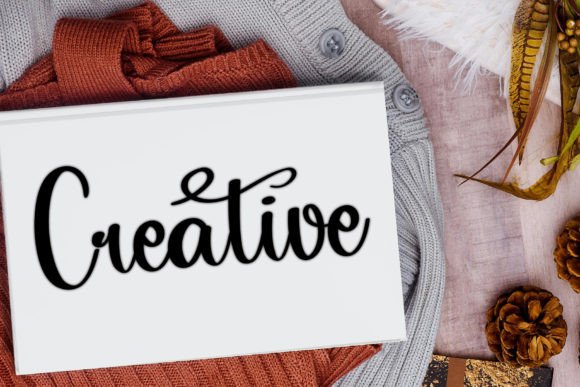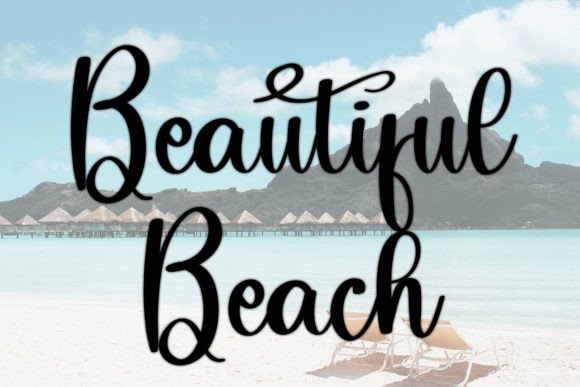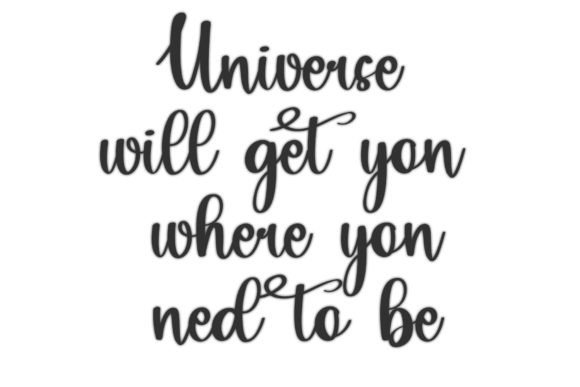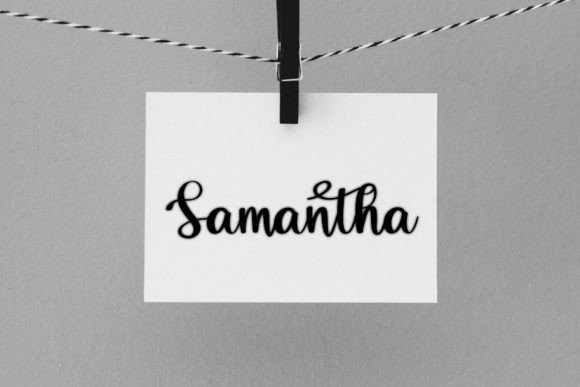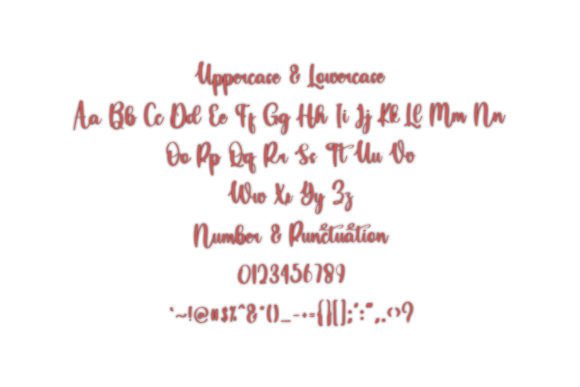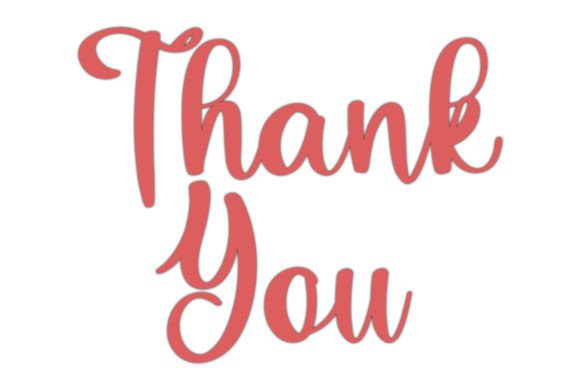
Introduction to Pandawa Font
Have you ever stumbled upon a font that makes your design dreams come true? For me, that moment was when I discovered the Pandawa Font. It’s a game-changer for designers who want to add a touch of elegance to their creative projects. The moment I laid eyes on its beautiful, handwritten script, I knew I had to share it with the world.
The Pandawa Font is a high-quality design resource that offers a unique and timeless style. Its distinct elegance makes it perfect for various projects, from branding to editorial content. With its transparent background, you can easily overlay it on any image or design, giving you endless possibilities for creative expression.
Key Features of Pandawa Font
- High-quality, unique font design suitable for creative projects requiring a touch of elegance and sophistication.
- Includes a transparent background, allowing for seamless integration with various design elements and backgrounds.
- Features a clean and minimalist design, making it perfect for use in logos, branding materials, and other visual identity projects.
Honest Review: Pandawa Font
As a designer, I’m always on the lookout for high-quality design resources that can elevate my creative projects. Recently, I stumbled upon the Pandawa Font, and I’m excited to share my honest review with you.
The first thing that caught my attention was the sleek and modern design of the font. It’s perfect for any creative project that requires a clean and sophisticated look. ✨ The font is also available for free download, which is a major bonus for designers on a budget.
Here are some of the key features that I love about the Pandawa Font:
- High-quality design that’s perfect for print and digital projects
- Transparent background, making it easy to use with any background image or color
However, I did encounter a few limitations while using the font. ⚠️ The font is not as versatile as some other fonts I’ve used in the past, and it may not be suitable for projects that require a lot of bold or italic text.
Overall, I’m impressed with the Pandawa Font, and I think it’s a great addition to any designer’s toolkit. While it may not be perfect, it’s definitely worth checking out for any creative project that requires a modern and sophisticated look.
Pandawa Font
The Pandawa Font is a high-quality, free download design resource perfect for any creative project. With its unique style and transparent background, this font is ideal for designers looking for a versatile and eye-catching element to add to their designs.
For the best results, use the Pandawa Font in conjunction with other high-quality design elements, such as images and graphics.
Experiment with different font sizes, colors, and arrangements to create a unique and visually appealing design.
The Pandawa Font is ideal for use in a variety of creative projects, including:
Marketing materials, such as brochures and flyers.
Branding and logo design.
Infographics and data visualizations.